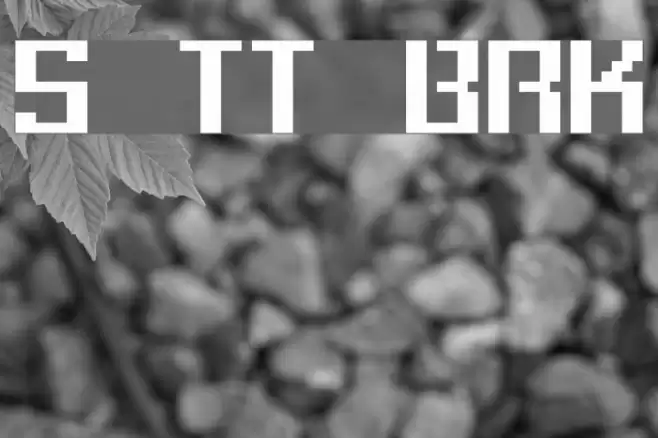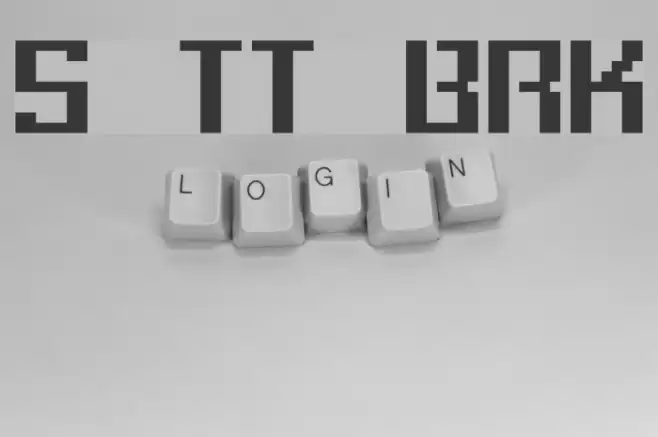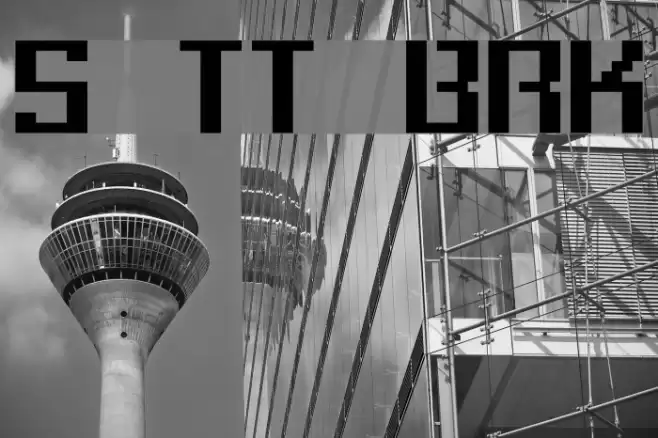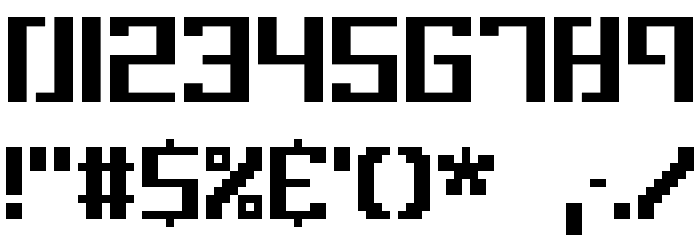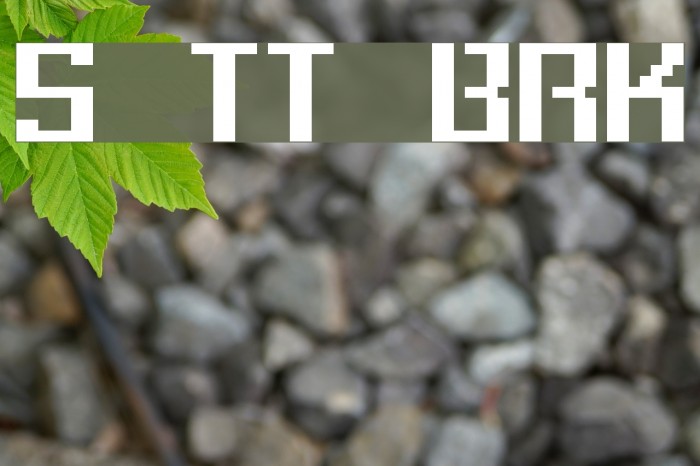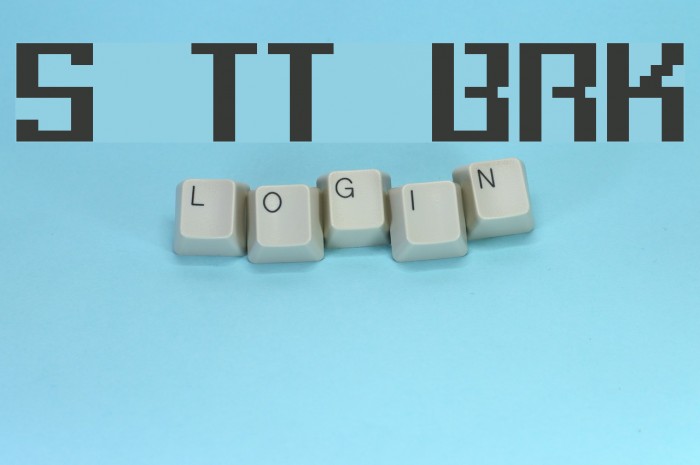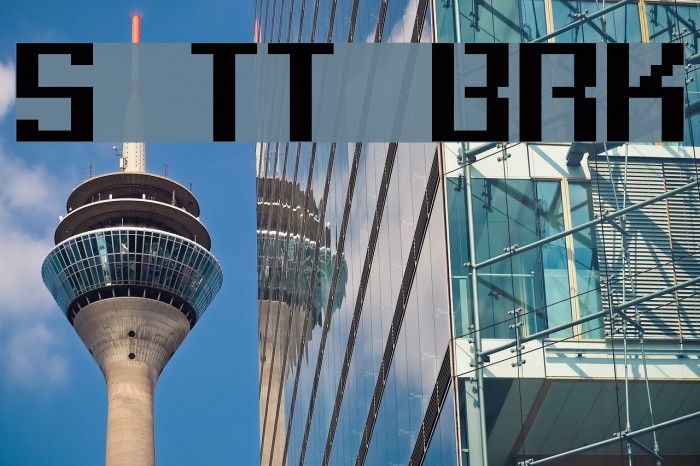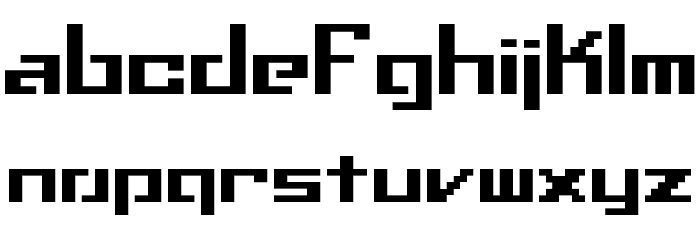
Setback TT BRK Font
Setback TT BRK Description
This font features a bold, pixelated design reminiscent of early digital or arcade-style typography. Each character is constructed with a blocky, geometric form, giving it a distinctly retro and tech-inspired appearance. The uppercase and lowercase letters maintain a consistent height, contributing to a uniform look. The numerals and special characters follow the same pixelated style, ensuring visual cohesion across all elements. This font's design is highly legible, with clear distinctions between each character, making it suitable for digital displays or projects that require a nostalgic or tech-savvy aesthetic.
A bold, pixelated font with a retro digital style from Pixel fonts.
- Proposed Projects: Ideal for video game design, retro-themed posters, digital art projects, and tech-related branding.
- Overall Style: Retro, Digital
- Use Case: Headlines, Logos, Digital displays